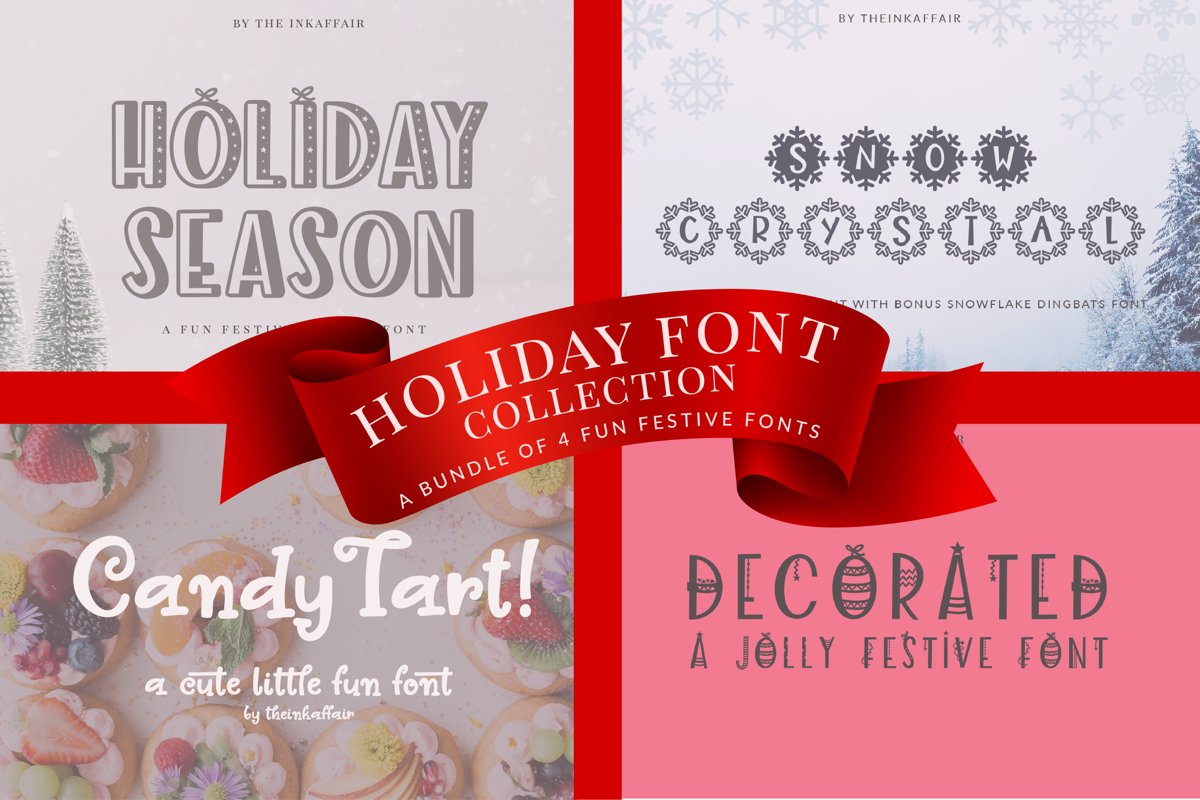
Holiday Font Bundle, Christmas Fonts
Holiday Font collection is a bundle of 4 fun festive fonts perfect for the Christmas and Holiday season!
Holiday Season
Snow Crystal + Bonus snow flakes dingbat font
Candy Tart
Decorated